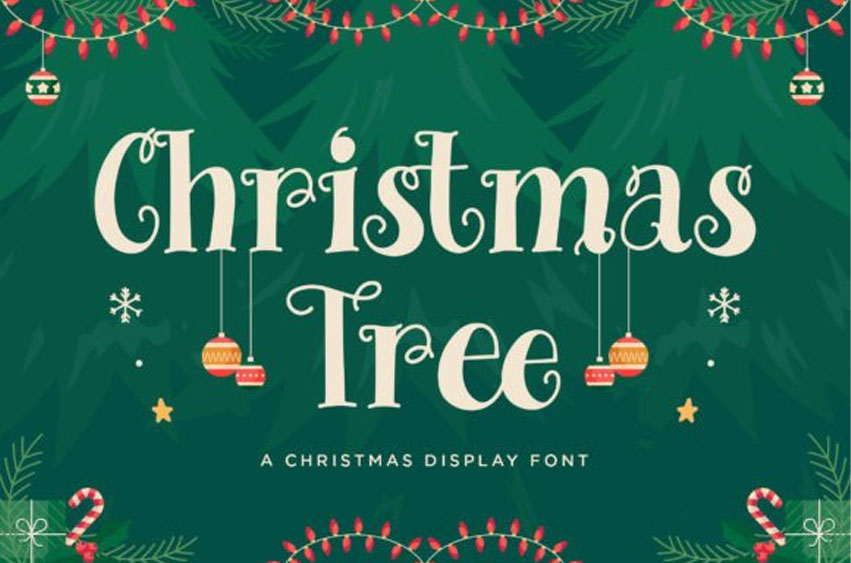
Christmas Tree Font
Christmas Tree Font that captures the magic of the holiday season? Look no further than Christmas Tree – a festive and whimsical display font that’s perfect for all your Christmas-themed projects!
With its bold and playful letterforms, Christmas Tree is a font that’s sure to stand out in your designs.
Whether you’re creating holiday cards, gift tags, or party invitations, Christmas Tree is the perfect font for the job. It’s also great for use in social media graphics, website headers, and other digital designs.